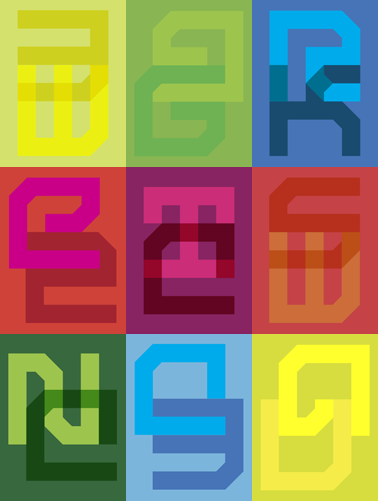
Sans Serious I
The ‘Sans Serious’ Series is a group of tribute typefaces meant to honor Dutch designer and typographer Jurriaan Schrofer.
Along with Wim Crouwel and Josef Albers, Jurrian Schrofer (1926 - 1990) was among the Bauhaus pioneers of grid-based modular typography and design.
Schrofer's work experimented with type, light, and color and focused on mathematical shapes and pattern.
From the book ‘Dutch Type’ by Jan Middendorp:
Schrofer made several attempts to create complete typefaces - one of which was wittily called Sans serious - but this was never his goal. ‘Is it necessary’, he wrote, ‘to make complete alphabets with upper- and lowercase, figures, diacritics and seriously adorned with a name, when the aim is merely a formal investigation into basic recipes’ Schrofer's domain was never the design of typographic alphabets, to be used by other designers, but always the creation of letterforms ‘made to measure’ as part of his own designs of - mainly - book covers and postage stamps. He created a rectangular alphabet as the basic element of his ever-changing covers - each based of the same grid but colored differently - for a series of scientific books, ‘Les textes sociologiques’ from Mouton Publishers. He made sophisticated pixel-based letters, all drawn by hand, and experimented with photographic screens as a means of distinguishing simplified letterforms from the background. He created logotypes built from custom-made letterforms, based on rectangular grids.
In his booklet ‘Letters op maat’ (‘Type made to measure’, 1987), Schrofer presented many of his experimental alphabets from the 1960s and '70s. The booklet was part of a series of goodwill publications edited by Wim Crouwel for Lecturis Printers, Eindhoven.
Image from Letters op matt.
Note: for all fonts in the ‘Sans Serious’ Series, the alphabet is the same for upper and lowercase.
I hope this isn't too inappropriate to still mention it at this point in time, way past the publishing date for the related FontStruct series.
But I wonder if you are aware that the lettering you've chosen to revise isn't actually the Sans Serious typeface?
This is something I too have also only recently got to find out, and for all those years I've mistaken the exact same lettering for being the Sans Serious typeface. This simply due to poor cataloging, and incorrect web resources. But after several additional studies for my own Schrofer project I'm pretty confident to say that this isn't Sans Serious.
Still I do believe that the Sans Serious name as title for this FontStruct series is totally accpeptable, as it is still a great way to refer to much of Jurriaan Schrofer's typographic work, on top of that, the gross majority of people are probably under the same false assumption.